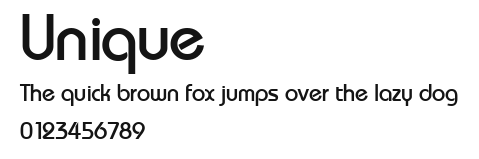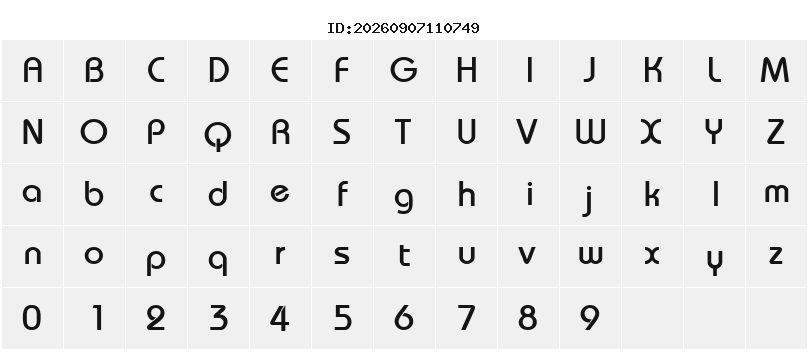
• Font Name: Unique
Unique.ttf is a modern, elegant sans-serif font designed for ultimate readability and visual harmony. Perfect for branding, headlines, web design, and print materials.